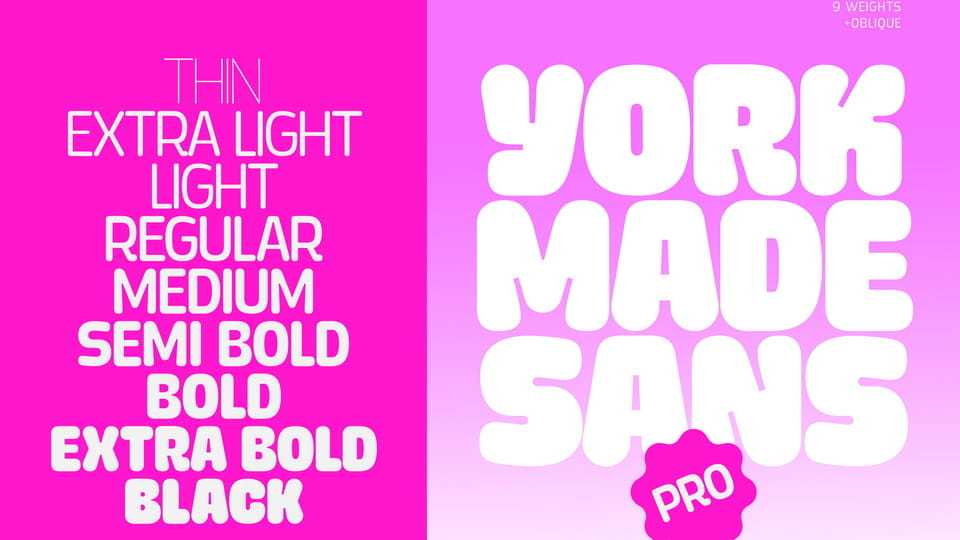
Download Yorkmade Pro font, featuring an updated family that is more versatile and enriched with additional glyph characters. Yorkmade Pro is suitable for display needs or designs that require large text, and it can also serve as body text.